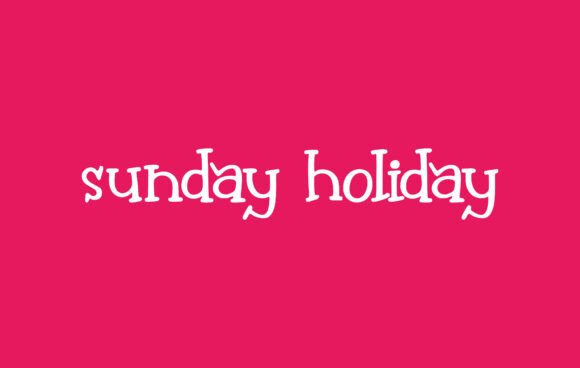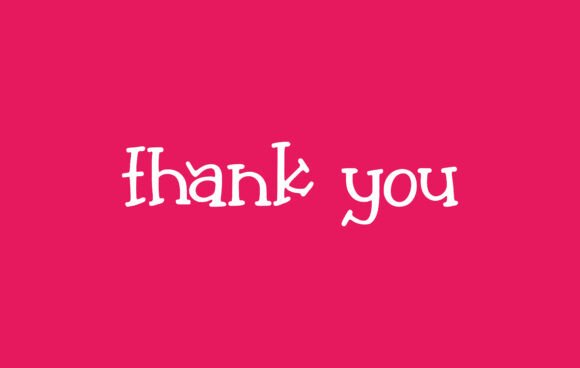
Bria Font: The Ultimate Handwritten Font for Creative Designs
In the world of typography, a good font can make all the difference in bringing your creative ideas to life. If you’re a designer, crafty enthusiast, or simply someone who appreciates beautiful handwriting, then you’re in luck. Introducing Bria Font, an authentic handwritten font with a romantic touch that’s sure to become your new favorite.
What Makes Bria Font Special?
Bria Font is expertly designed to add a touch of elegance and sophistication to any design project. Its unique, handwritten style has a romantic feel that’s perfect for a wide range of applications, from magazine headlines and social media graphics to branding, wedding invitations, and more. Whether you’re looking to create a bold statement or a subtle impression, Bria Font is the perfect choice.
Key Features of Bria Font
- Authentic Handwritten Style: Bria Font boasts an authentic handwritten style that’s both legible and visually appealing.
- Romantic Touch: The font’s romantic touch adds a touch of elegance and sophistication to any design.
- Legible and Versatile: Bria Font is perfect for use as both title and body text, making it a versatile addition to any design project.
- Wide Range of Applications: From magazine headlines and social media graphics to branding, wedding invitations, and more, Bria Font is the perfect choice for a wide range of design projects.
Why Designers and Crafters Love Bria Font
So, why do designers and crafters love Bria Font? For starters, its unique, handwritten style allows for endless creative possibilities. Whether you’re looking to create a bold statement or a subtle impression, Bria Font is the perfect choice. Additionally, its legibility and versatility make it perfect for use in a wide range of design projects, from print materials to digital graphics.
How to Use Bria Font in Your Designs
Using Bria Font in your designs is easy. Here are a few ideas to get you started:
- Magazine Headlines: Use Bria Font to create eye-catching headlines that grab readers’ attention.
- Social Media Graphics: Add a touch of elegance and sophistication to your social media graphics with Bria Font.
- Branding: Use Bria Font to create a unique and memorable brand identity.
- Wedding Invitations: Add a romantic touch to your wedding invitations with Bria Font.
- Cards and Stationery: Use Bria Font to create beautiful cards and stationery that are sure to impress.
Tips for Getting the Most Out of Bria Font
Here are a few tips for getting the most out of Bria Font:
- Pair with Other Fonts: Bria Font pairs well with a variety of other fonts, so don’t be afraid to get creative and try out different combinations.
- Use in Combination with Images: Bria Font looks great in combination with images, so consider using it to add a touch of elegance and sophistication to your graphics.
In conclusion, Bria Font is an authentic handwritten font with a romantic touch that’s sure to become your new favorite. Its unique, legible style and versatility make it perfect for a wide range of design projects, from magazine headlines and social media graphics to branding, wedding invitations, and more. Whether you’re a designer, crafty enthusiast, or simply someone who appreciates beautiful handwriting, Bria Font is a must-have addition to your font collection.